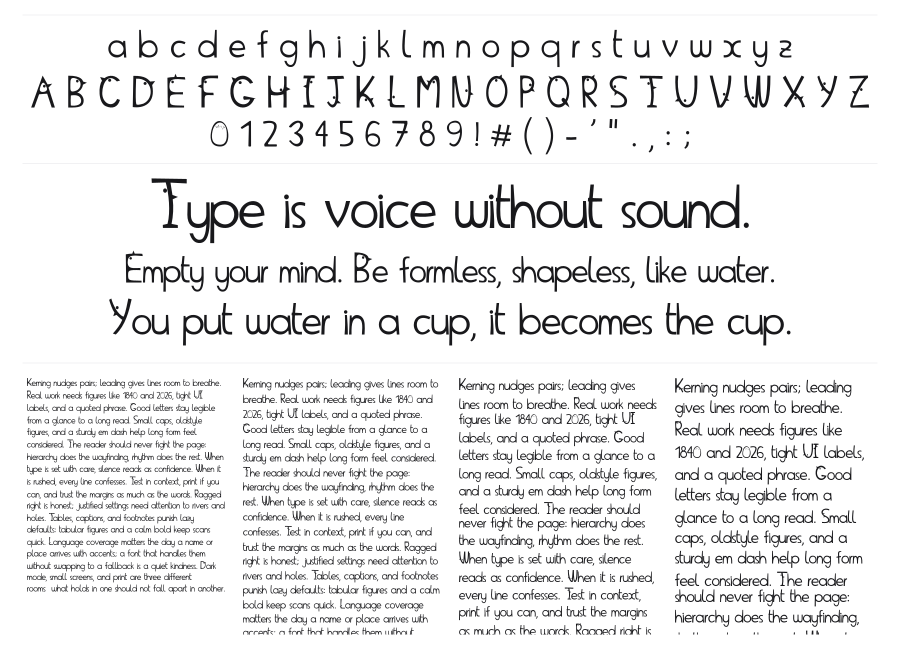
Pajarito Font
by Zo� Zoro
Pajarito Font is a thin, casual handwritten face by Zoé Zoro with a light, breezy stroke that feels genuinely informal. The letterforms have a quirky, slightly uneven quality that gives them real personality without sacrificing legibility. A good pick for personal projects, greeting cards, social media graphics, or anywhere you want friendly, lightweight type that reads like actual handwriting.